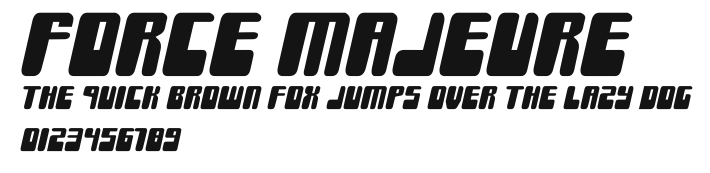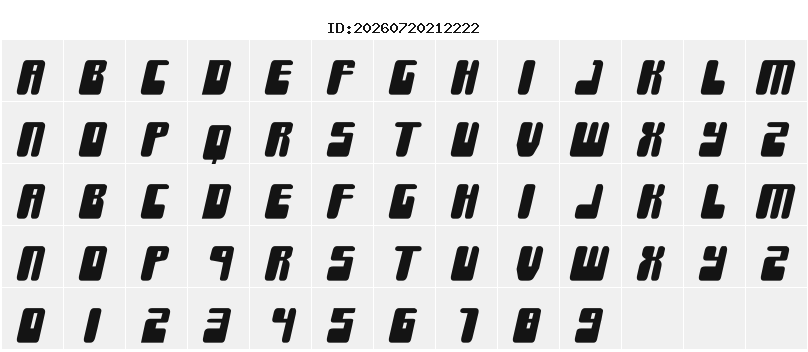
About Force Majeure.ttf
Force Majeure.ttf is a modern, elegant sans-serif font designed for ultimate readability and visual harmony. Perfect for branding, headlines, web design, and print materials.